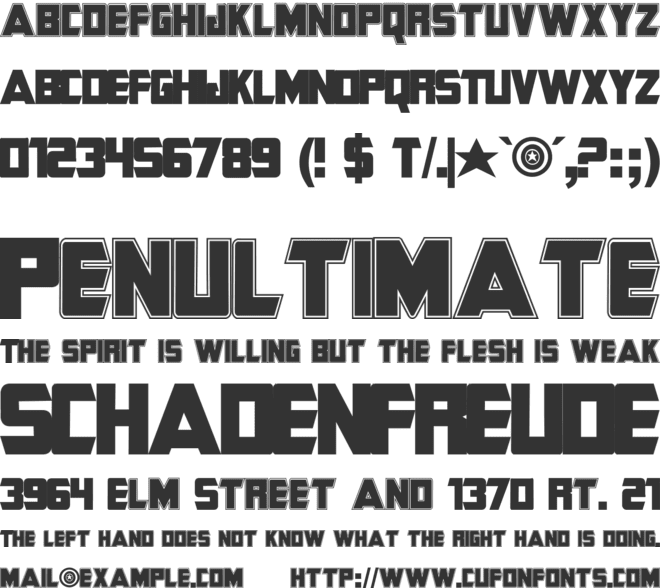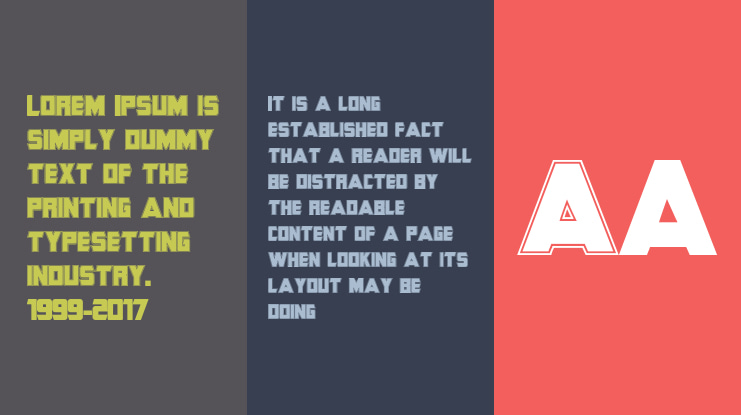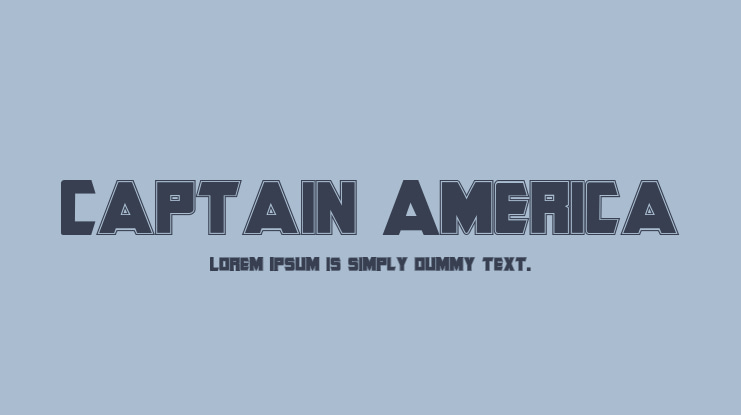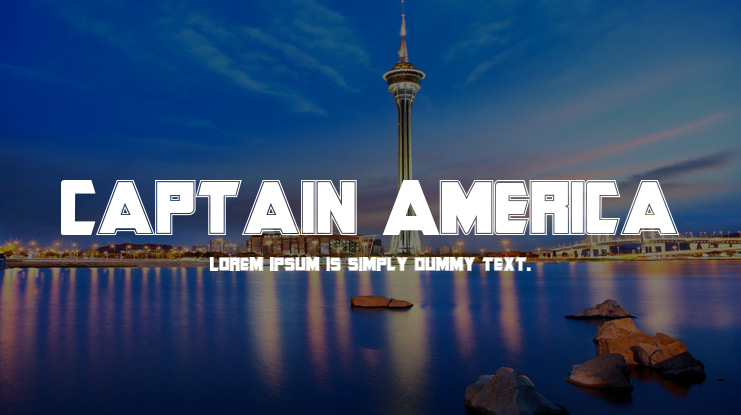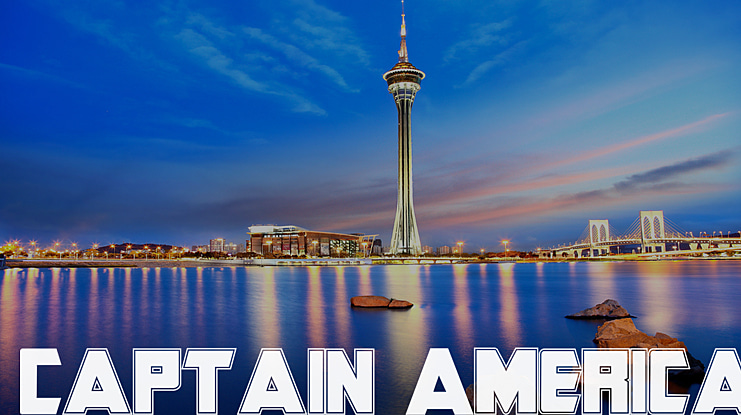
Captain America Font
P. A. Vannucci
Directly from the film directed by Joe Johnston and starring Chris Evans, the new font for all admirers of the film.
Direttamente dal film diretto da Joe Johnston e interpretato da Chris Evans, il font inedito per tutti gli estimatori del film.